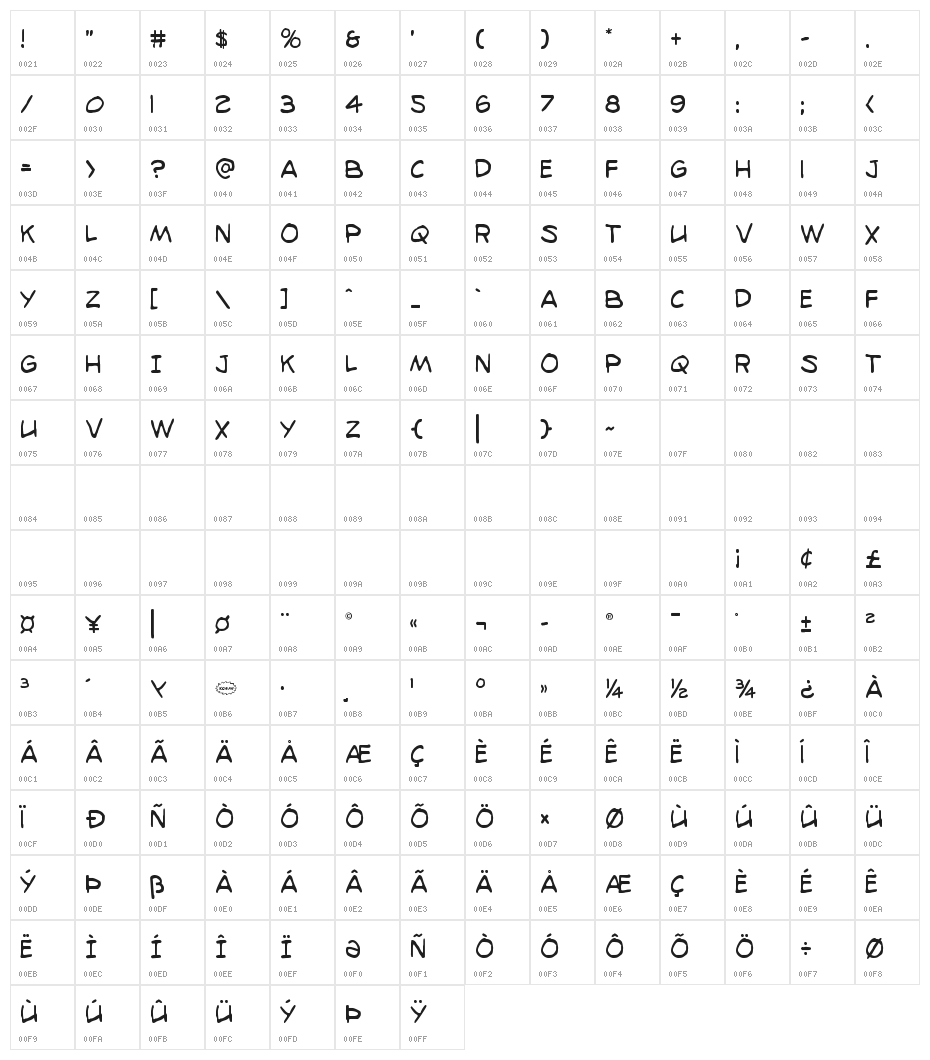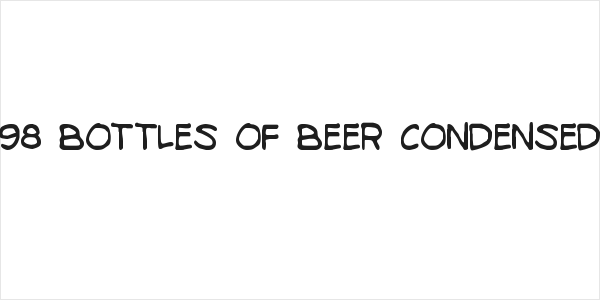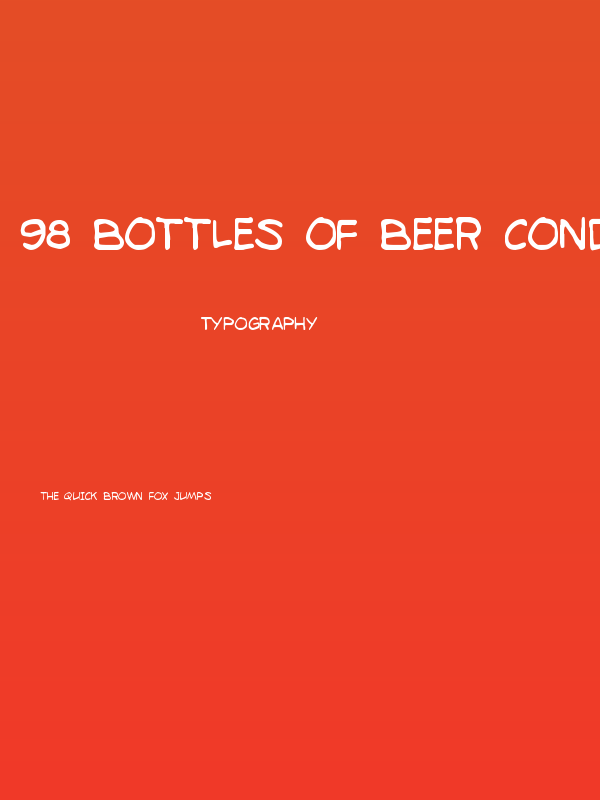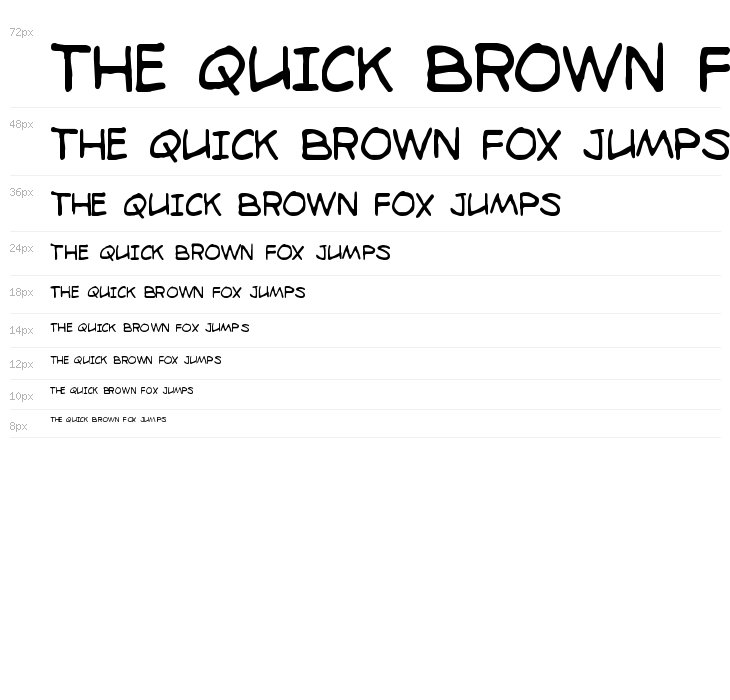
98 Bottles of Beer Condensed Font
This font features a playful and informal style, characterized by its hand-drawn appearance. The letters are bold and slightly irregular, giving a casual and friendly vibe. The strokes are thick and rounded, contributing to its approachable aesthetic. The uppercase and lowercase letters maintain a consistent style, with a slight slant that adds to the dynamic feel. The numbers and special characters are designed to match the overall look, ensuring uniformity across all elements. This font is well-suited for projects that require a fun and engaging tone.
| Proposed Projects | Ideal for children's books, comic strips, playful branding, and informal event invitations. |